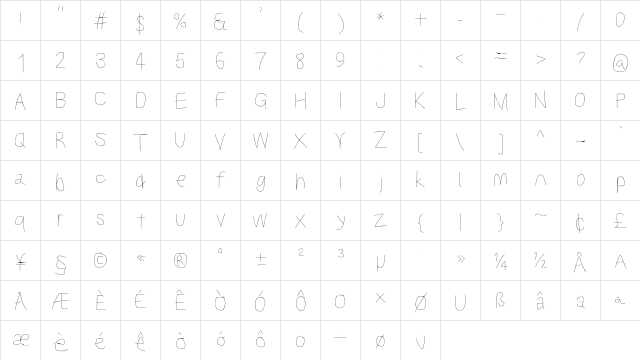
Kabina Lt
Design Context for Kabina Typeface
Kabina is a composed and adaptable typeface that performs quietly and consistently across a wide range of design contexts. Its slender proportions lend an understated elegance to any composition.
Pro Tip: Pair Kabina with a font of contrasting weight or personality to build a more expressive typographic hierarchy.